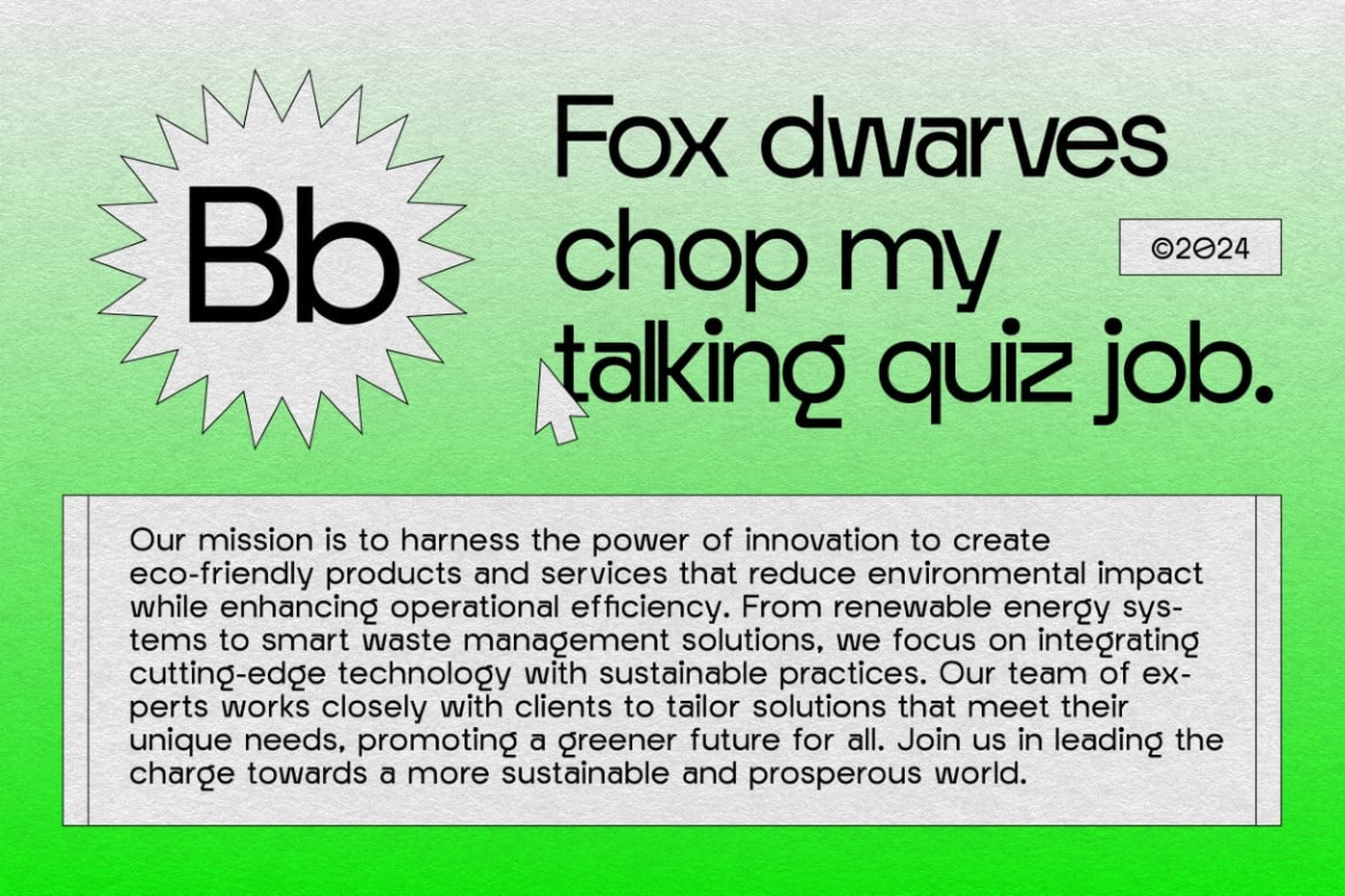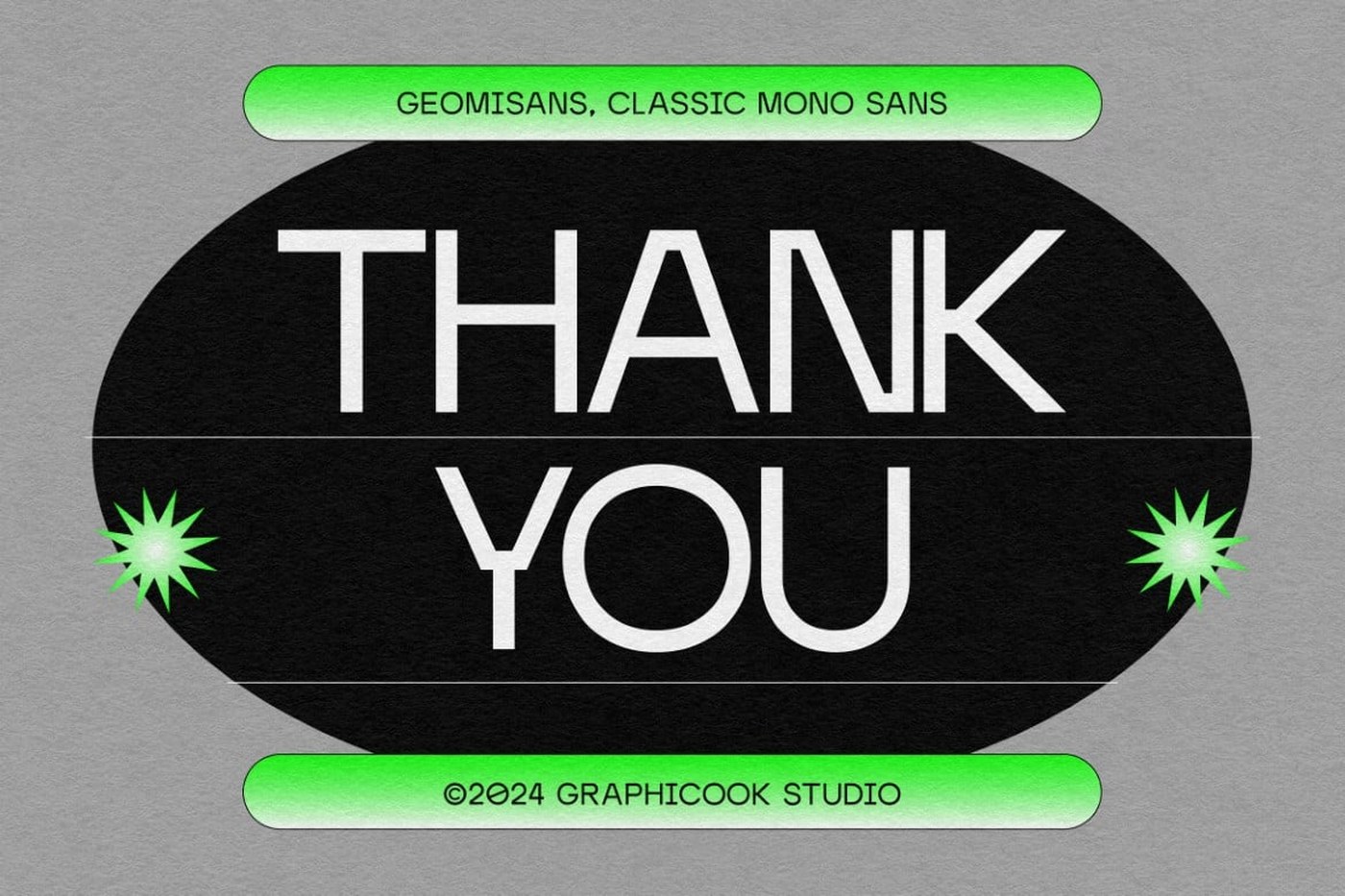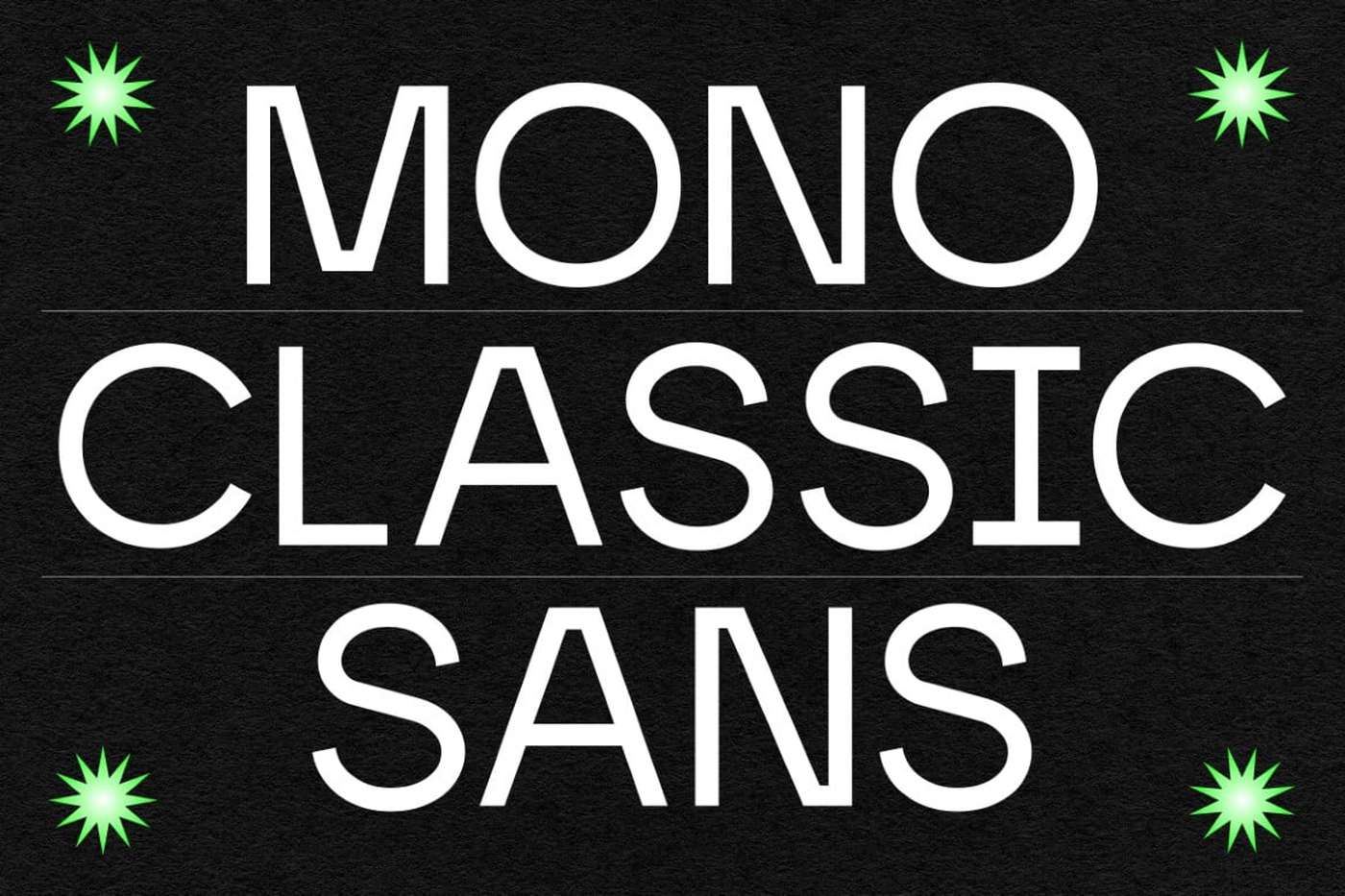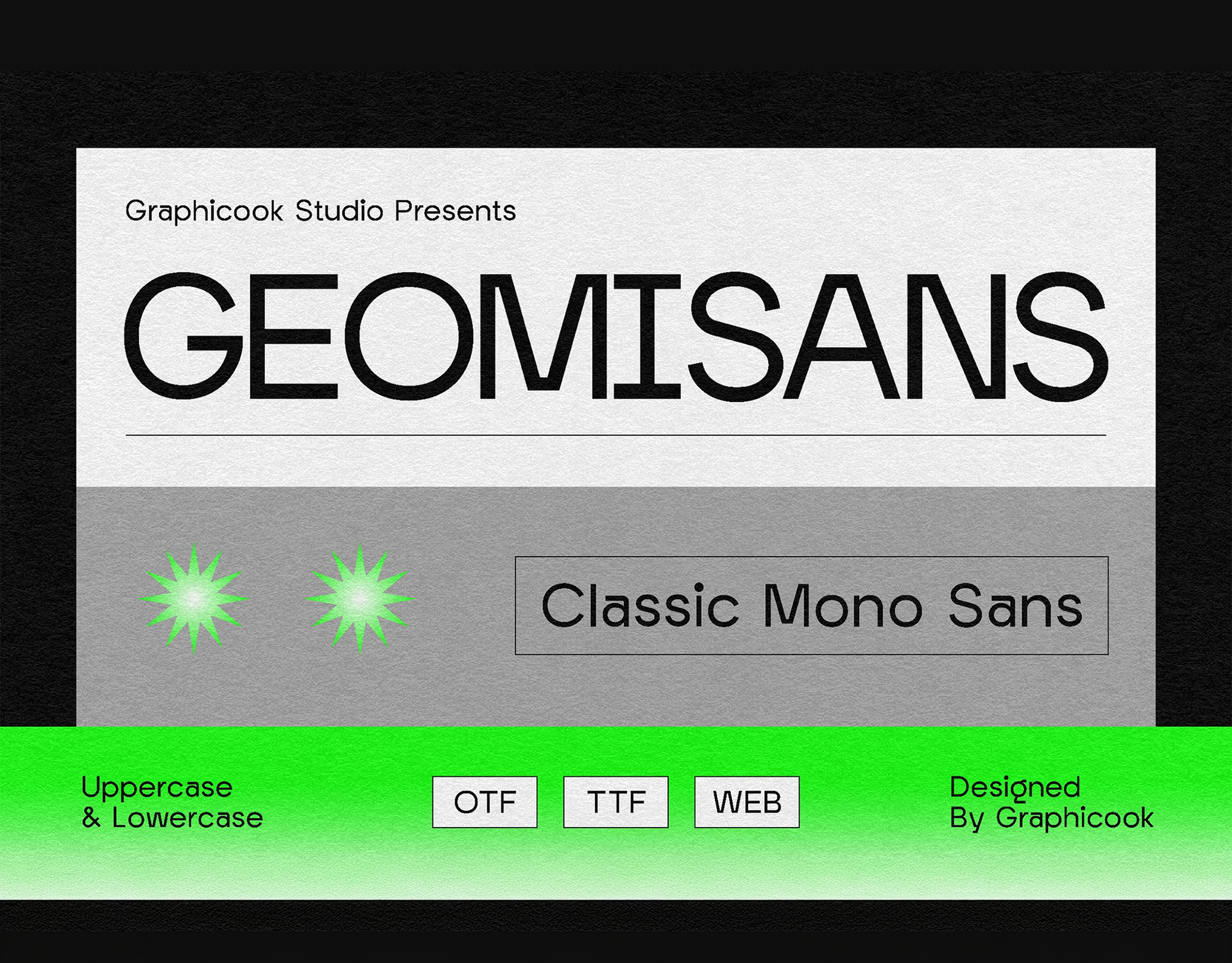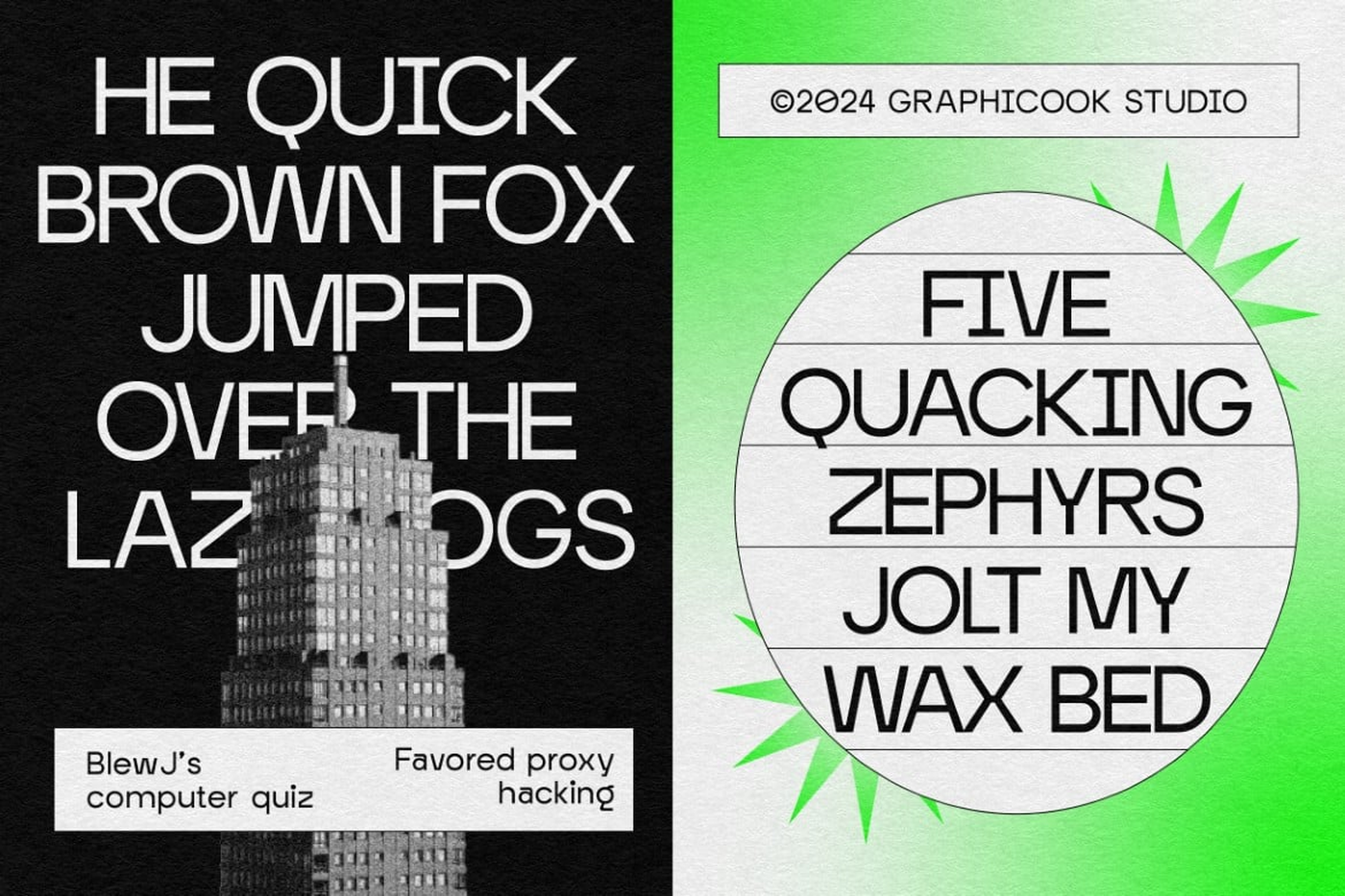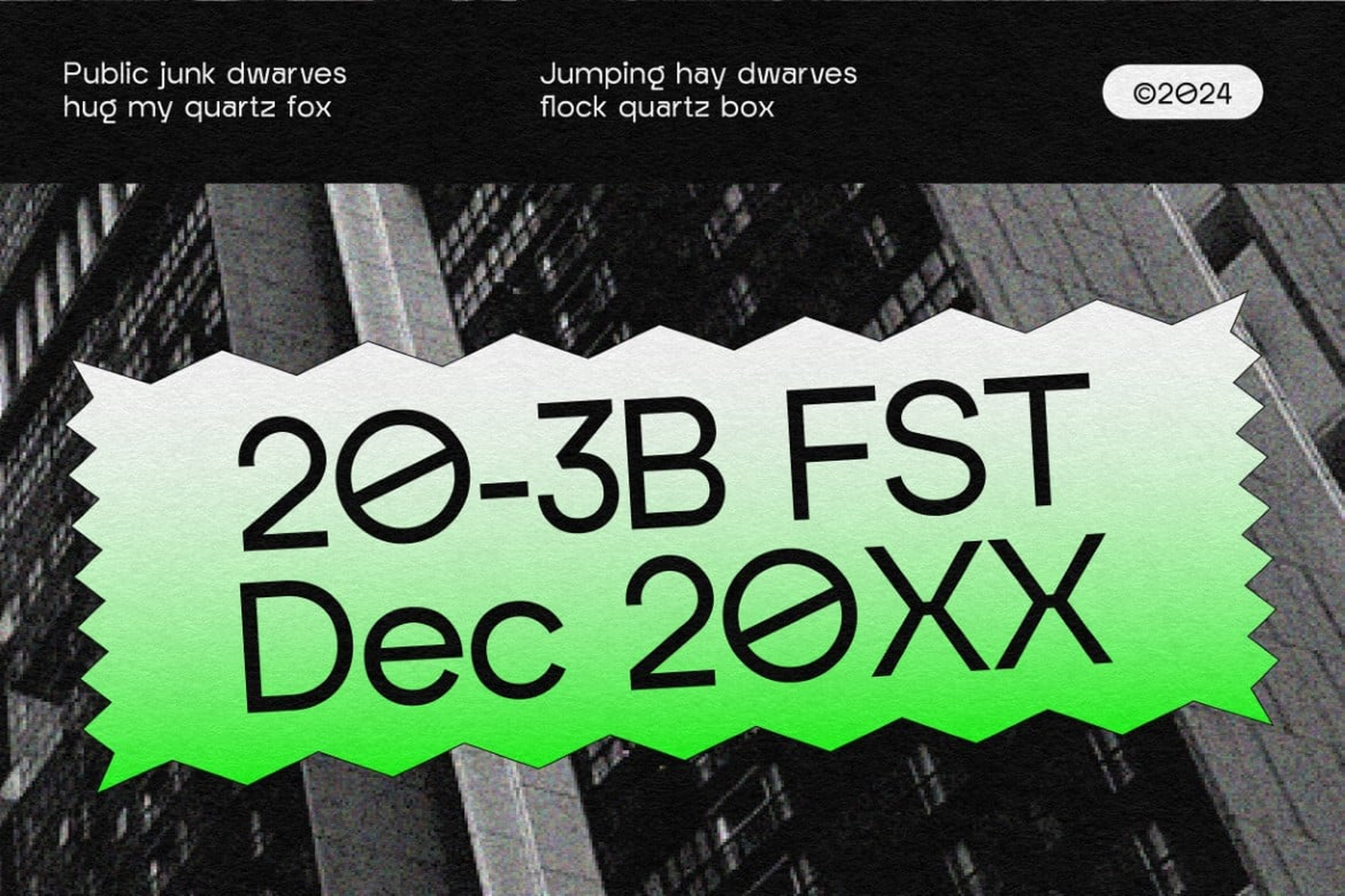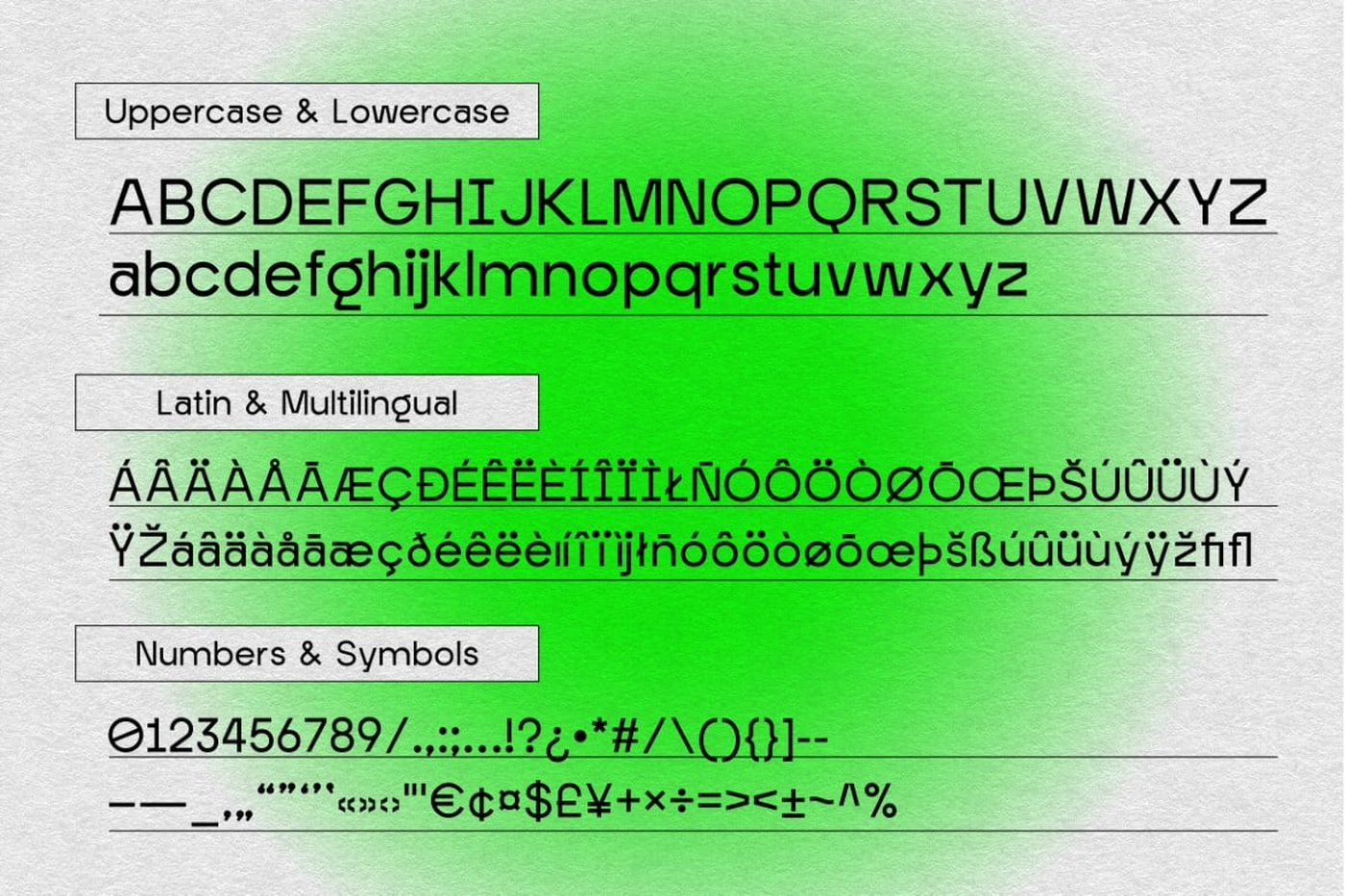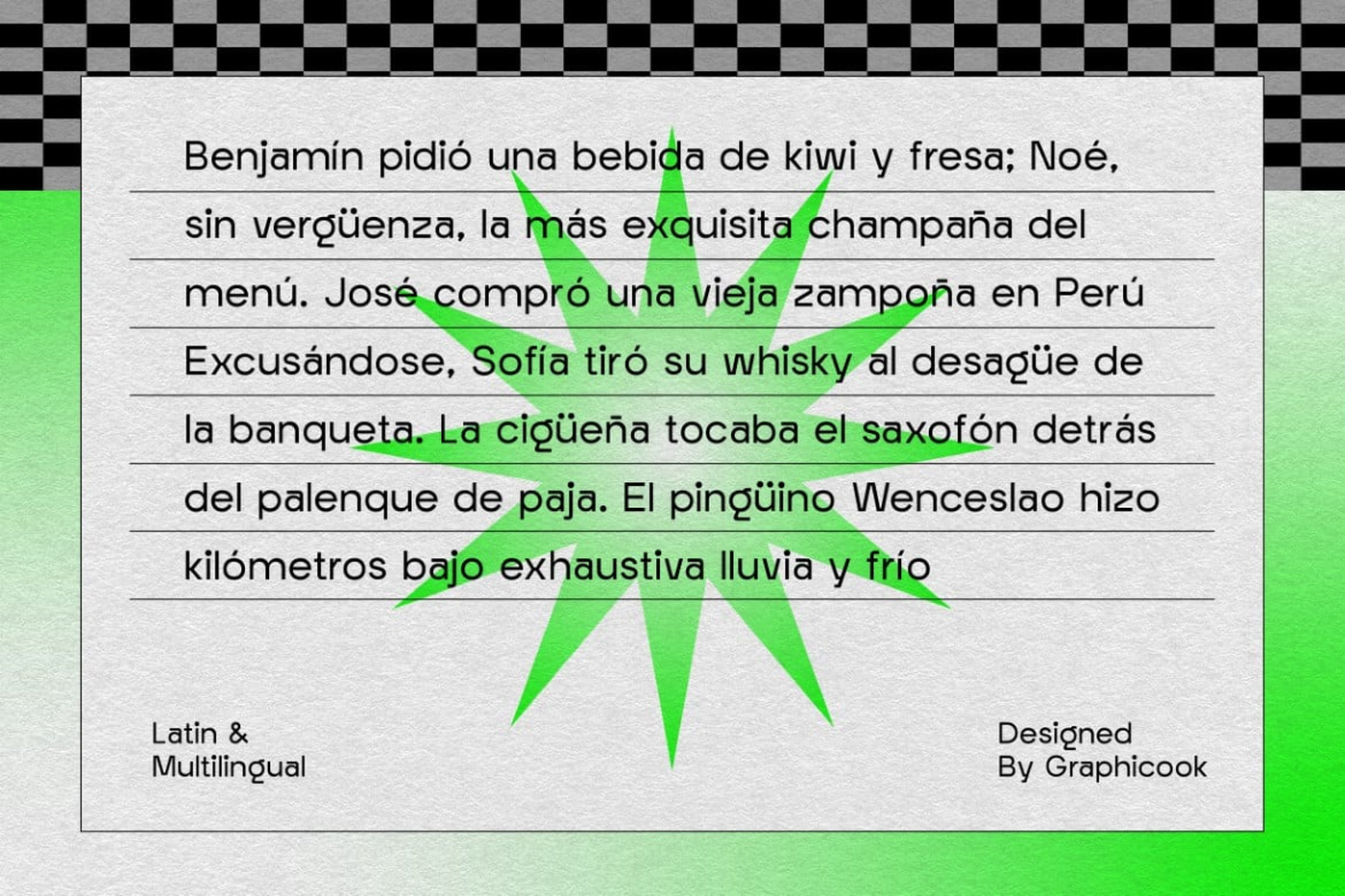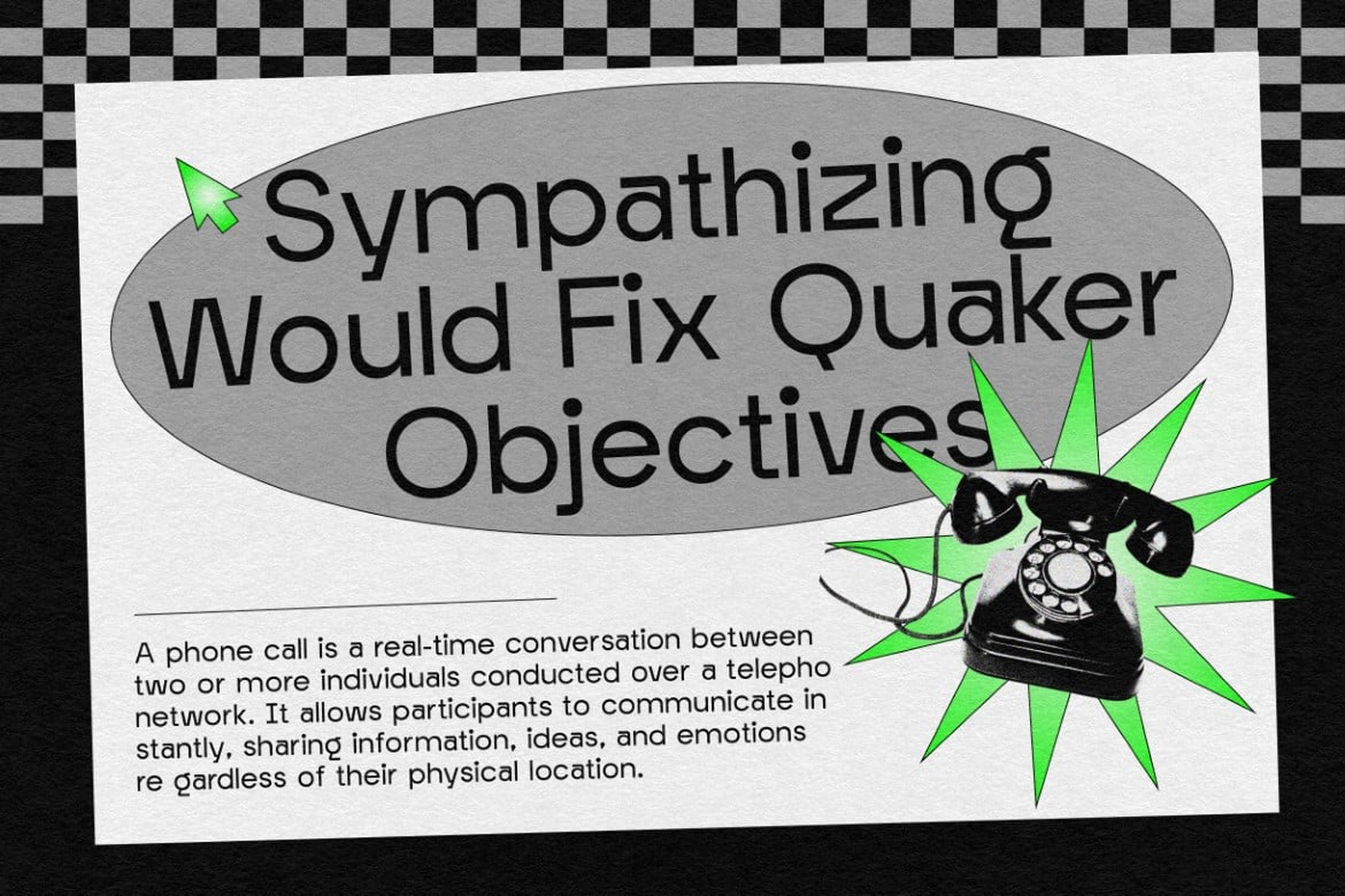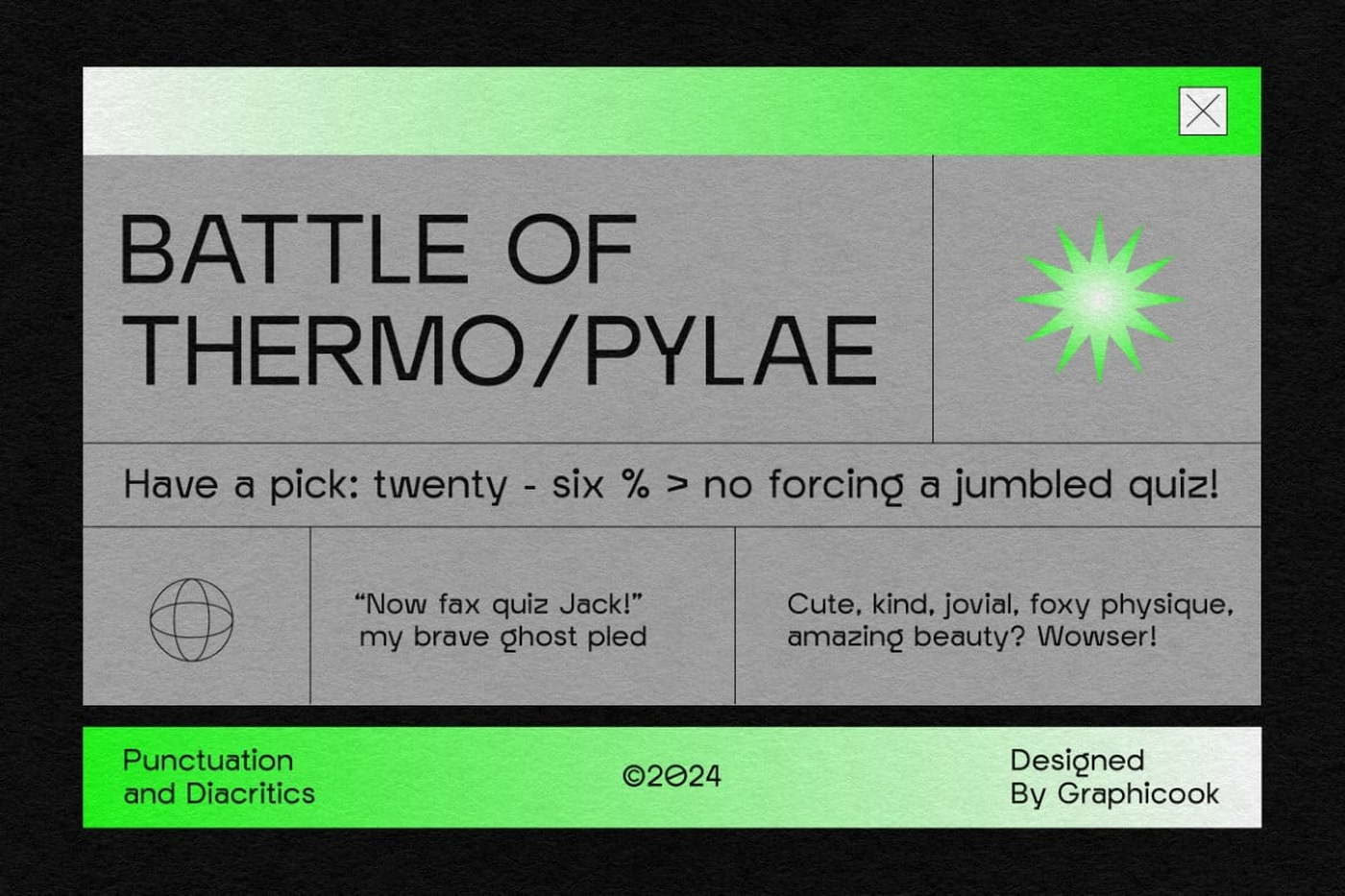
Geomisans - Mono Sans Serif Font
A classic mono sans font packed with grotesque style. Its versatility makes it perfect for all types of design projects
Font: Geomisans